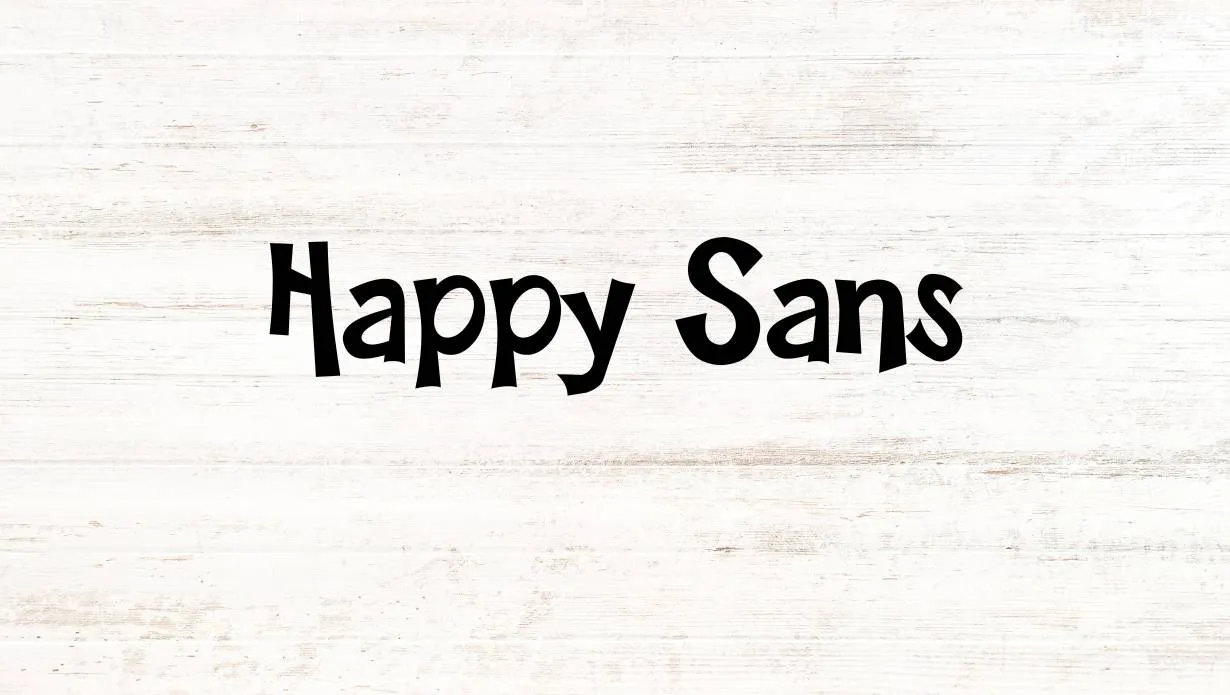
Happy Sans Font is a playful and decorative typeface that adds a touch of fun and creativity to design projects. It’s often used in children’s books, party invitations, and imaginative branding, bringing a sense of whimsy and charm to the visuals. The font’s unique and cheerful letterforms create an element of joy and creativity in your design work.
| Name | Happy Sans Font |
| Designer | Essque Productions |